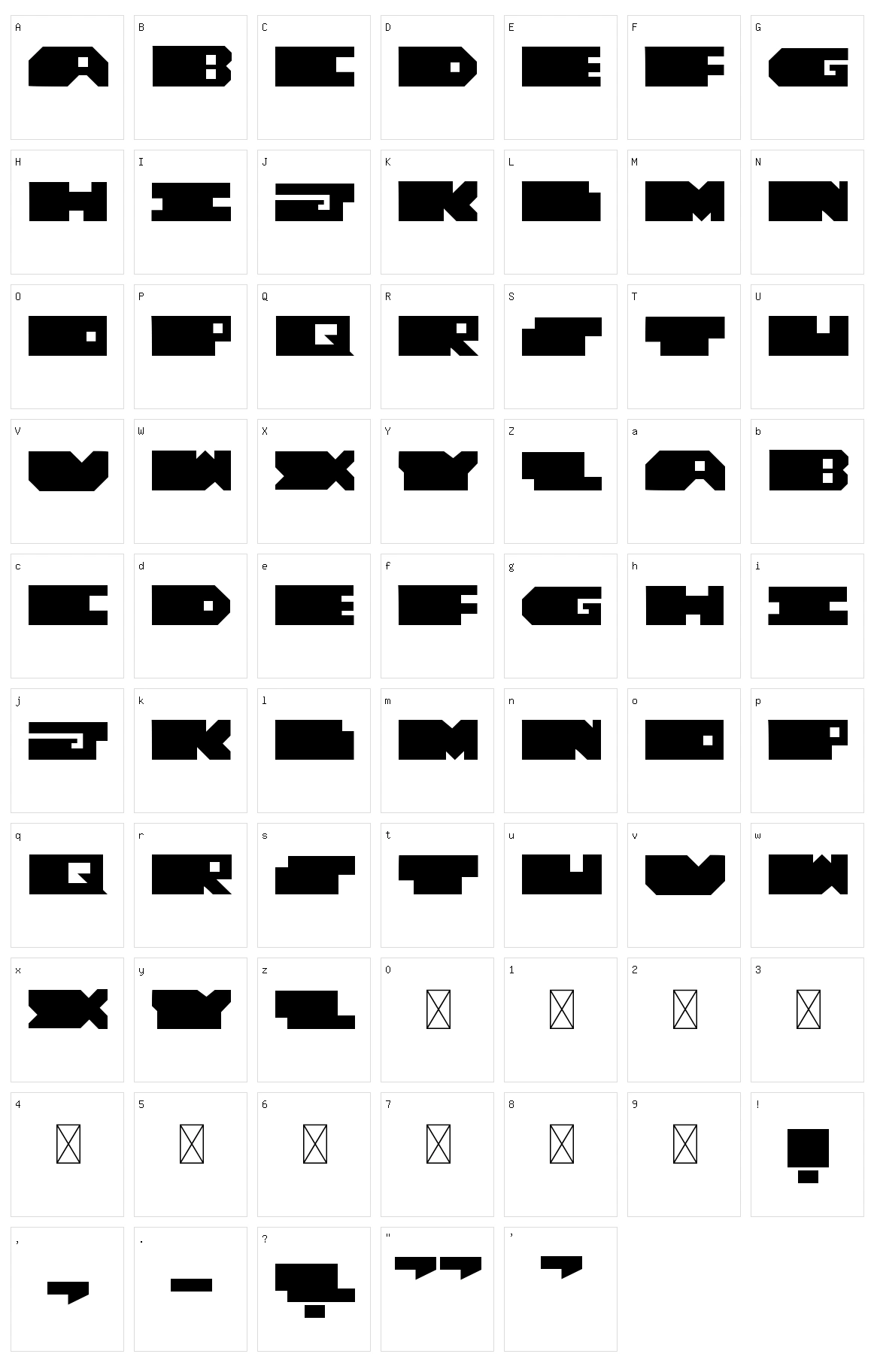
The free font MK Ultra is carefully designed by Marcus Melton, showcasing a thoughtful balance of creativity and usability and falls under the Square font style. When you download the ZIP file, it contains only 3.03 KB of font files, making it lightweight and quick to download. Please review the license details below to understand permitted usage and distribution rights. If license information is not available, we recommend using this font for personal projects only or contacting the author directly for commercial usage permissions.